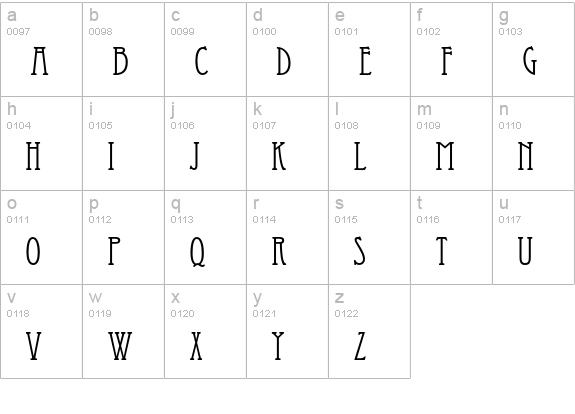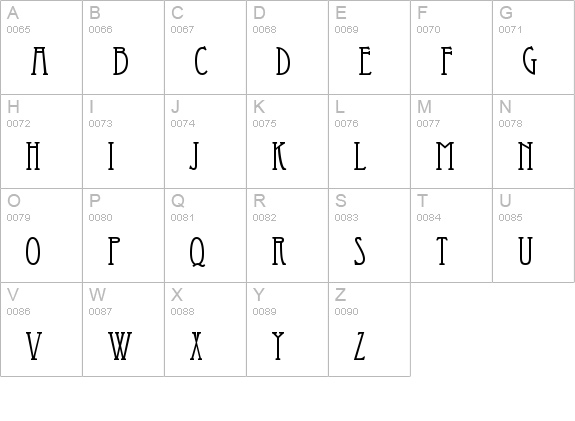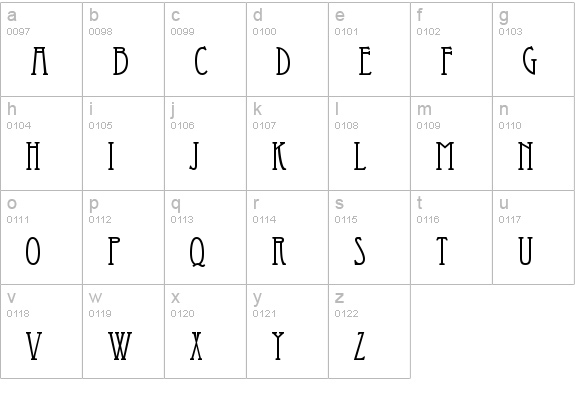
AT Eccentric Font Details
Introducing the captivating AT Eccentric font, a whimsical and quirky typeface that is sure to add a unique touch to your designs. With its playful and unconventional letterforms, AT Eccentric exudes creativity and originality, making it perfect for projects that demand a bit of eccentricity. This font is not only visually striking but also versatile, suitable for a wide range of design applications including branding, packaging, posters, and more. Its bold and distinct appearance ensures that your message will stand out and leave a lasting impression on your audience. Best of all, AT Eccentric is available for free download at FontsMarket.com. So go ahead and unleash your creativity with this one-of-a-kind font that is sure to add a touch of eccentric charm to your next project.